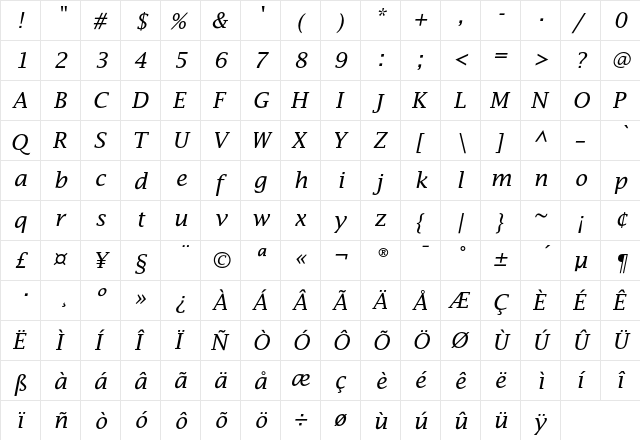
LucidaFaxEF RomanItalic
Design Context for LucidaFaxEF Typeface
LucidaFaxEF offers clean, dependable letterforms without strong stylistic allegiance, making it a practical choice for designers who need flexibility. Its italic angle brings a sense of urgency and motion to the letterforms.
Pro Tip: Use LucidaFaxEF for emphasis, pull quotes, and subheadings where its slanted energy can add rhythm to the layout.